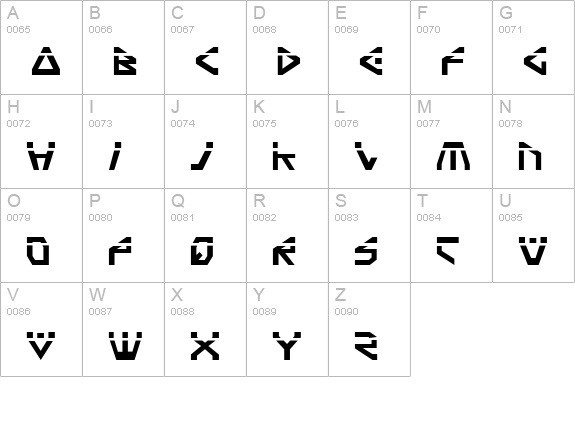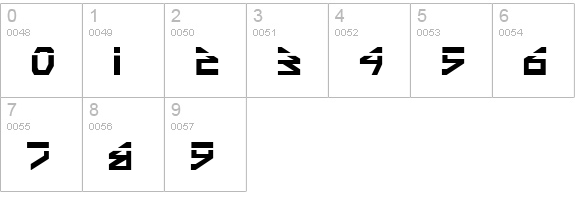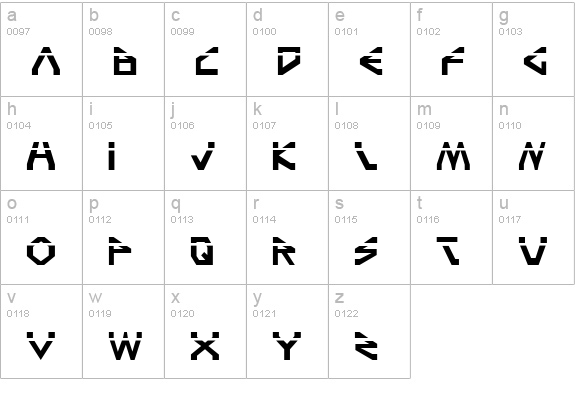
Introducing Terra Firma Laser Font, the epitome of modernity and sophistication. This font is a perfect blend of sleek lines and sharp edges, making it the ideal choice for any project that requires a bold statement. With its refined laser-cut appearance, Terra Firma Laser Font exudes confidence and adds a touch of elegance to any design. But what makes Terra Firma Laser Font even more remarkable is that it is freely available for download at FontsMarket.com. Yes, you read that right - this incredible font can be yours without costing you a dime. Whether you are a professional designer or simply someone who appreciates the power of typography, Terra Firma Laser Font is a must-have addition to your font collection. Imagine the possibilities with Terra Firma Laser Font: stunning logos that demand attention, eye-catching headlines that leave a lasting impression, or even captivating invitations that set the tone for your event. The versatility of this font knows no bounds. Not only does Terra Firma Laser Font boast a visually striking appearance, but its functionality is equally impressive. With a wide range of characters, including uppercase, lowercase, numerals, and punctuation marks, this font effortlessly caters to your every typographic need. So don't miss out on this incredible opportunity to enhance your designs with Terra Firma Laser Font. Download it for free at FontsMarket.com and unlock a world of possibilities. With Terra Firma Laser Font, your creativity will know no bounds.